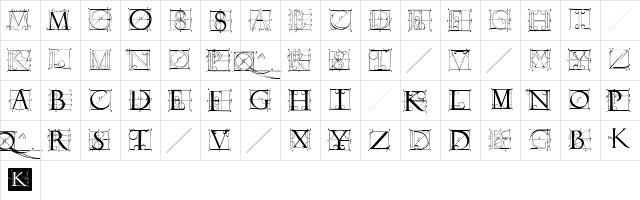
SketchesByDuerer Regular
Design Context for SketchesByDuerer Typeface
SketchesByDuerer is a composed and adaptable typeface that performs quietly and consistently across a wide range of design contexts.